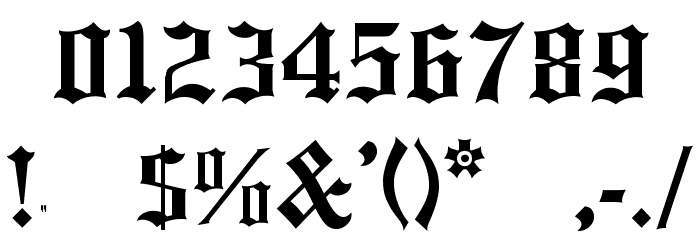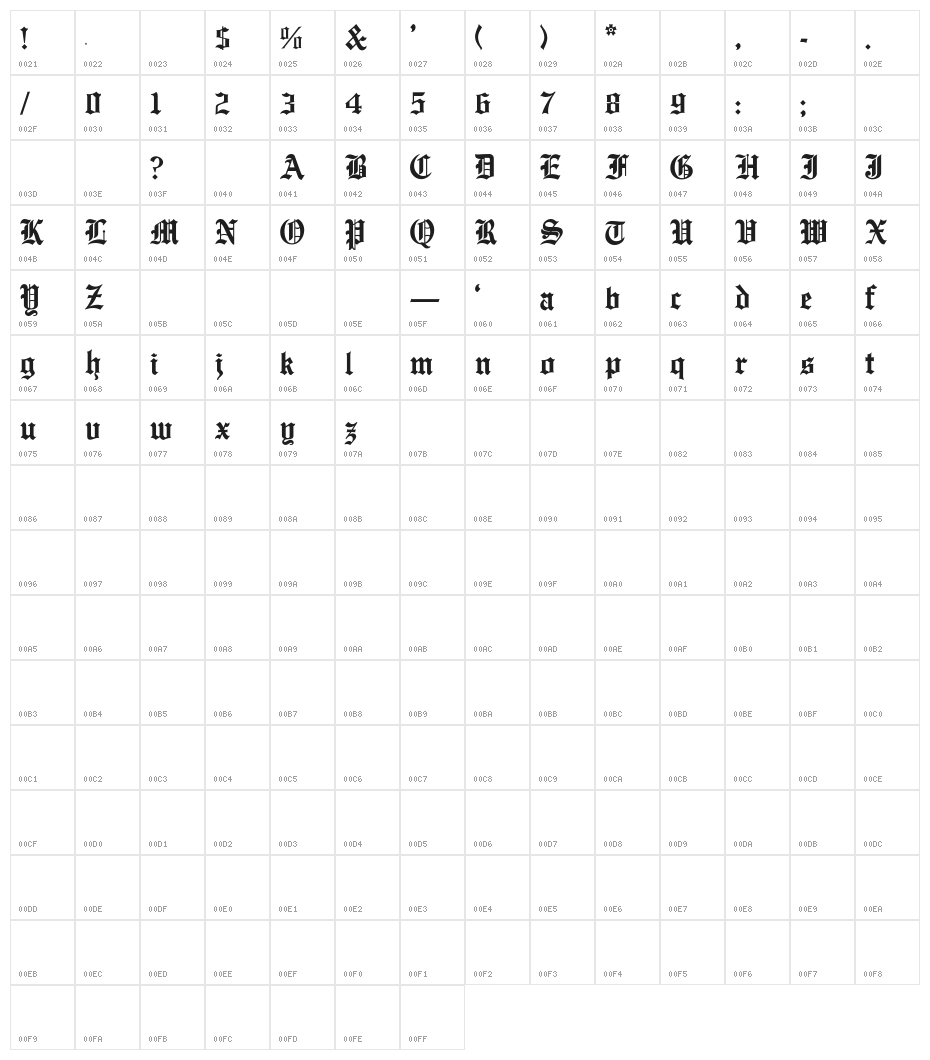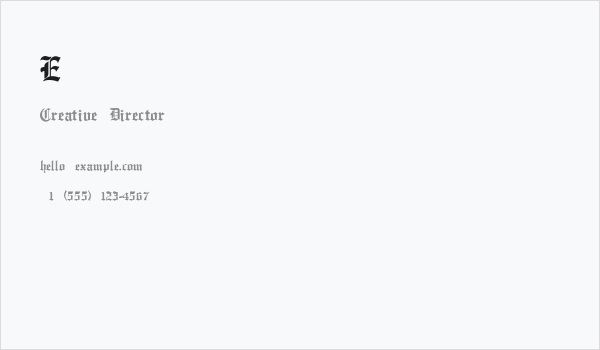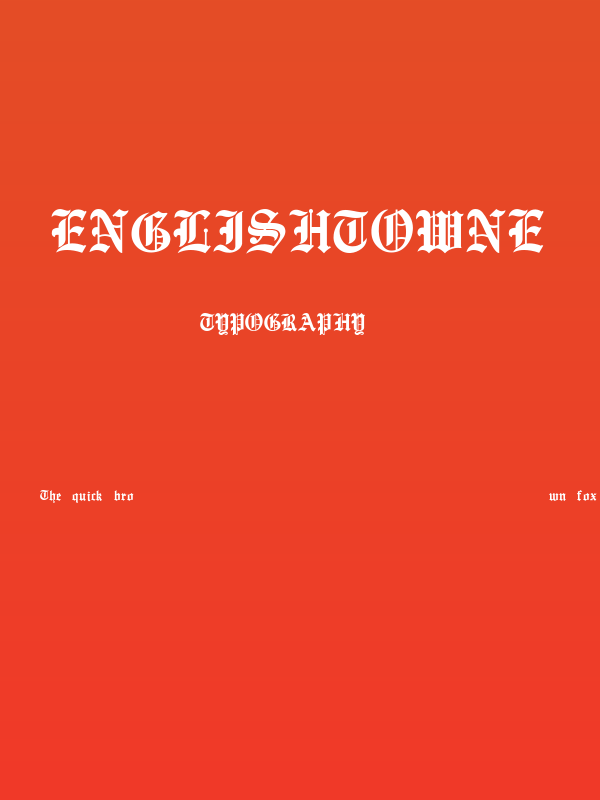
EnglishTowne Font
EnglishTowne Description
This font embodies the traditional and ornate characteristics of Blackletter typefaces, often associated with medieval manuscripts and early print. It features elaborate and intricate letterforms with sharp, angular lines and dramatic strokes. The uppercase letters are particularly decorative, with flourishes and embellishments that give them a regal and historic appearance. The lowercase letters maintain the same level of detail, ensuring consistency throughout the typeface. The numerals and special characters are designed to match the overall style, with bold and striking forms that stand out. This font is ideal for projects that require a touch of elegance and historical significance, such as certificates, invitations, or branding for luxury products.
| Proposed Projects | Ideal for certificates, invitations, historical documents, or luxury branding. |